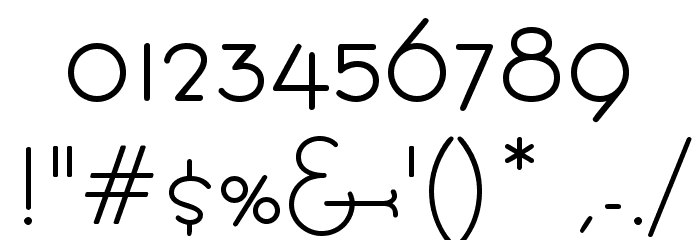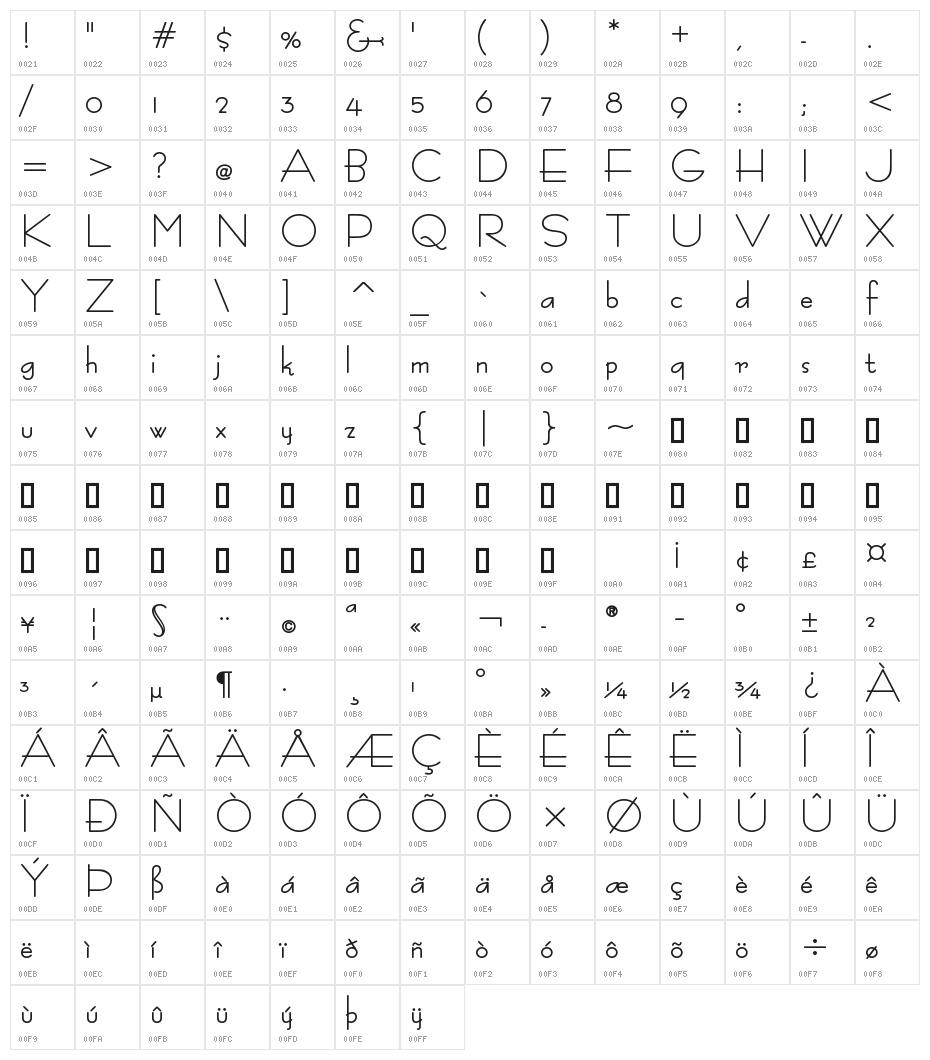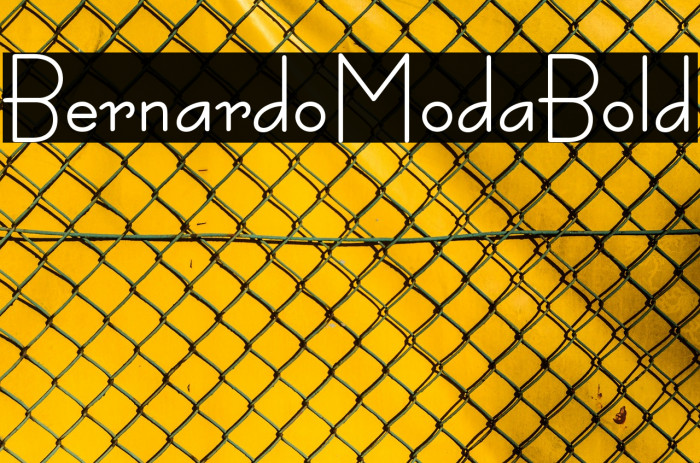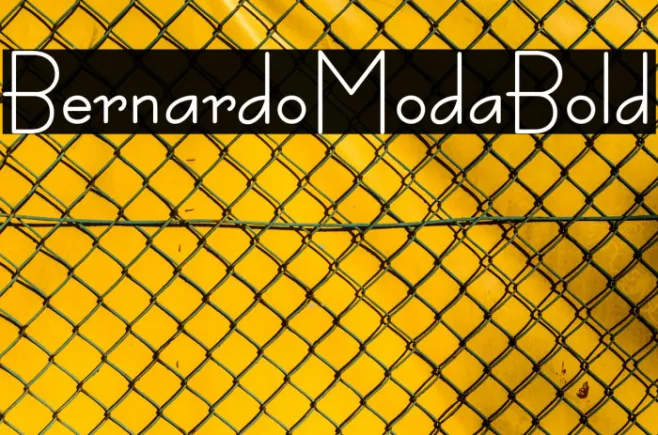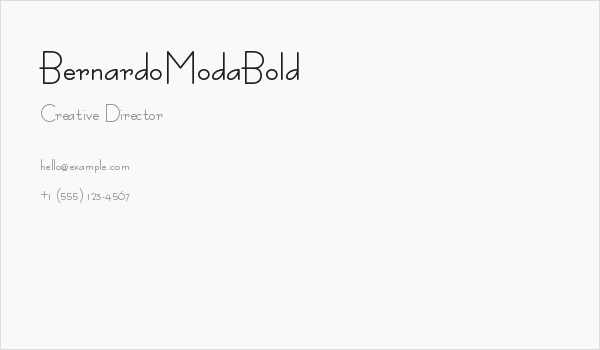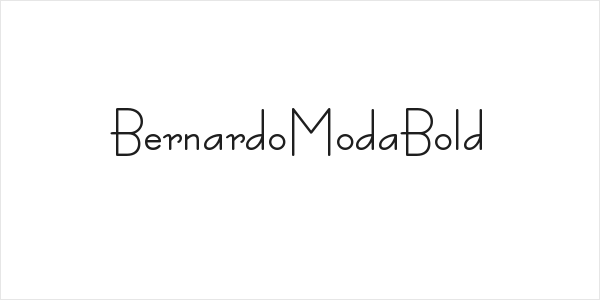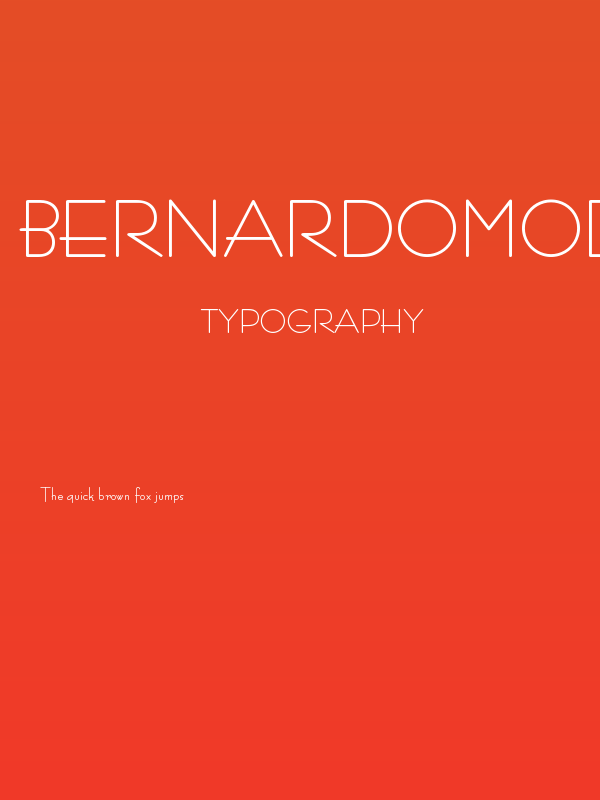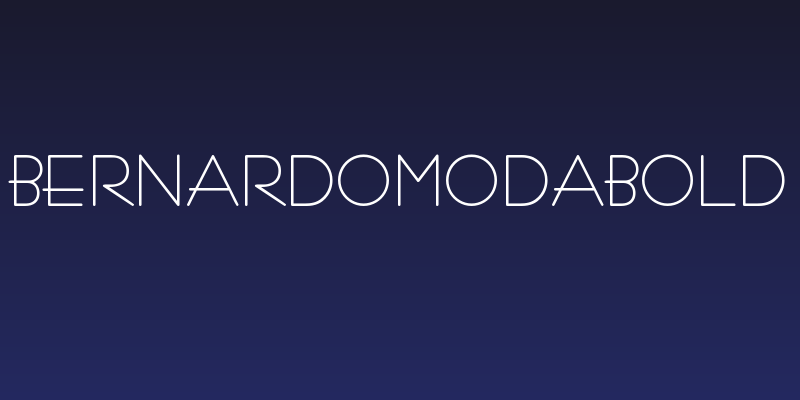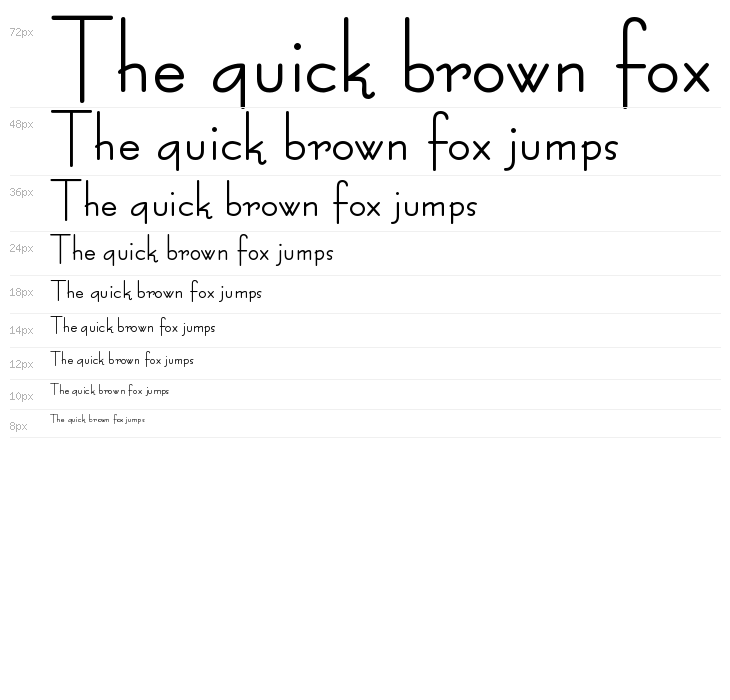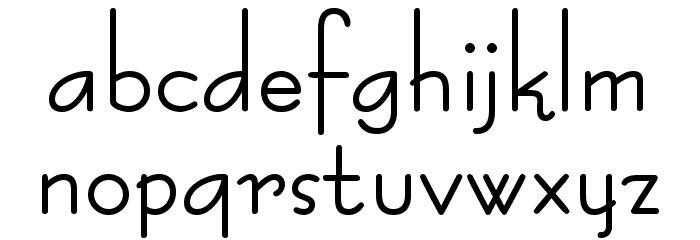
BernardoModaBold Font
BernardoModaBold Description
This font features a clean and modern design with a geometric structure. The uppercase letters are characterized by their thin, uniform strokes and a minimalist aesthetic, creating a sense of elegance and simplicity. The lowercase letters maintain a consistent style, with rounded edges that add a touch of softness to the overall appearance. The numerals are clear and legible, following the same geometric principles. Special characters are well-integrated, ensuring versatility in various design contexts. The font's overall look is sleek and contemporary, making it suitable for a wide range of applications.